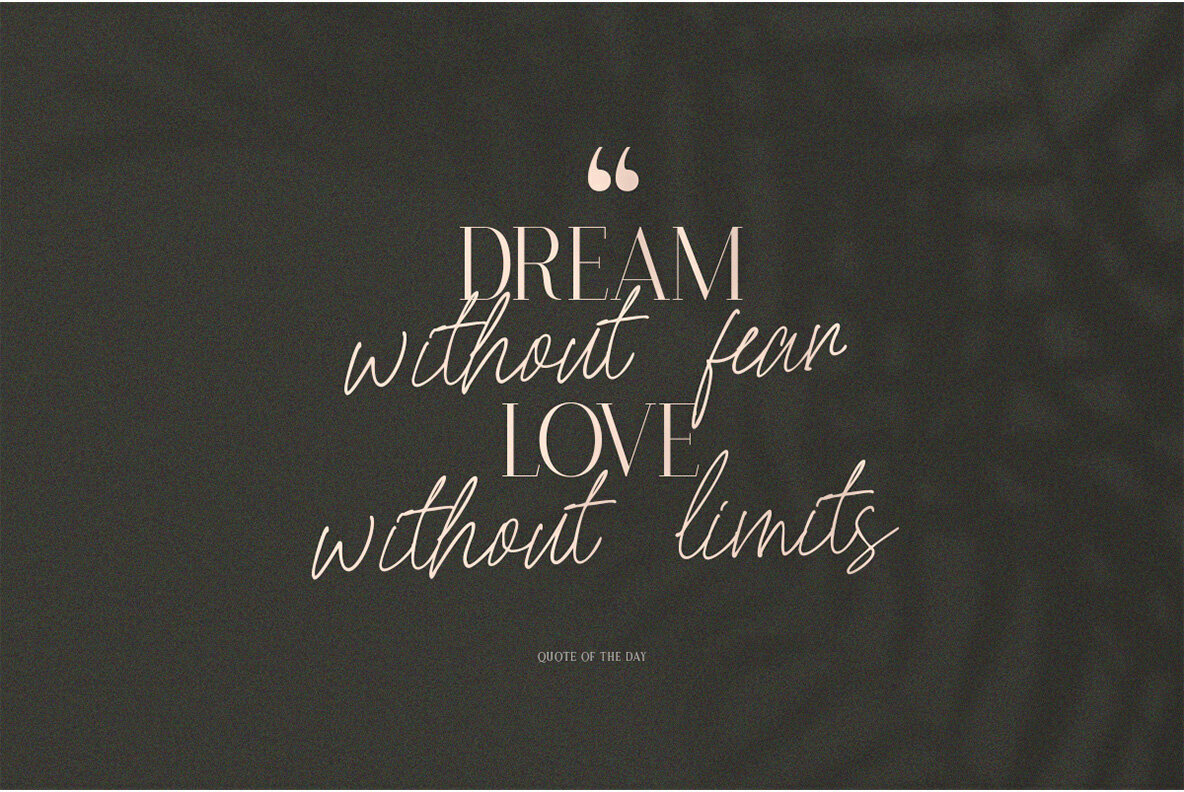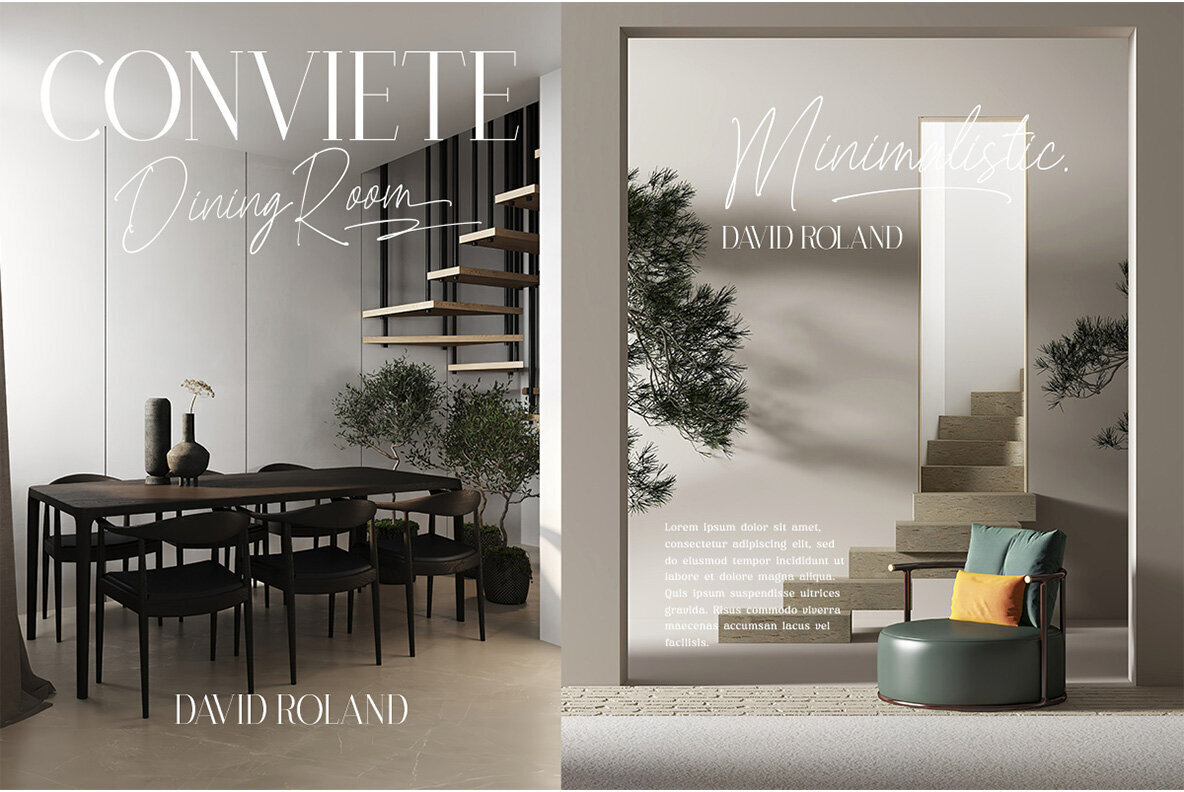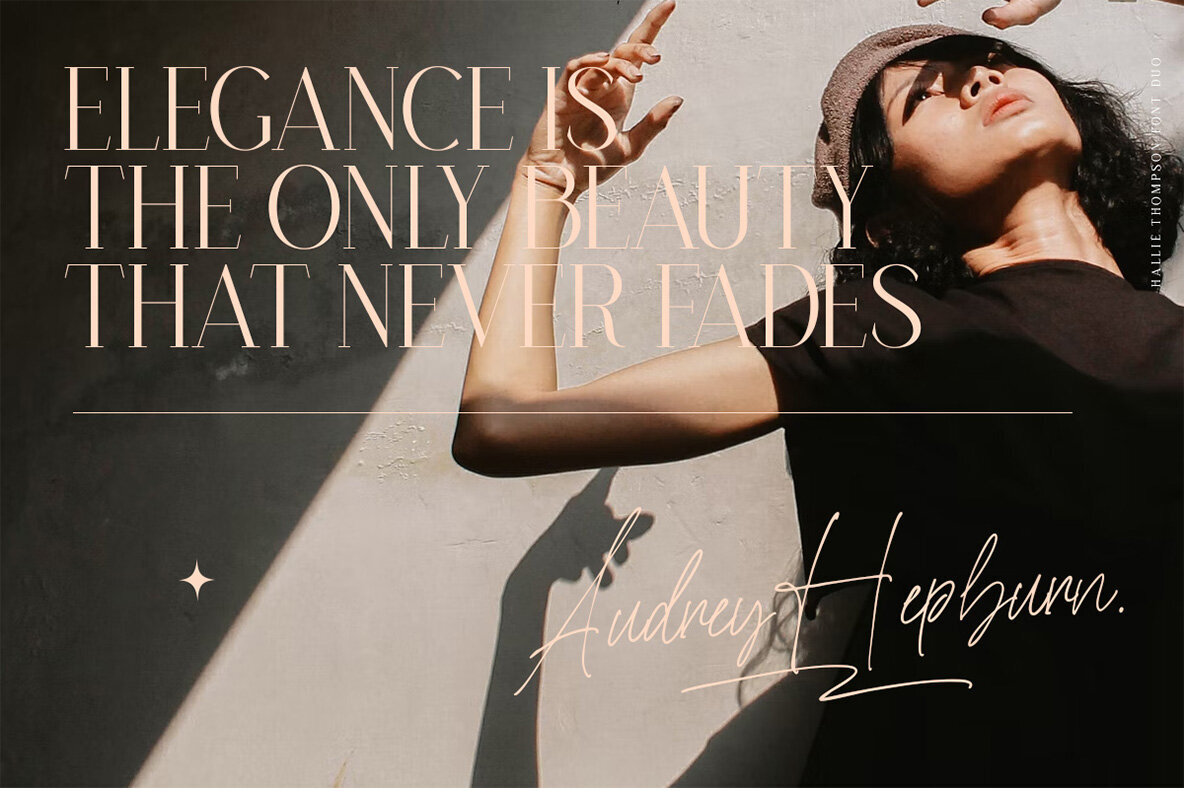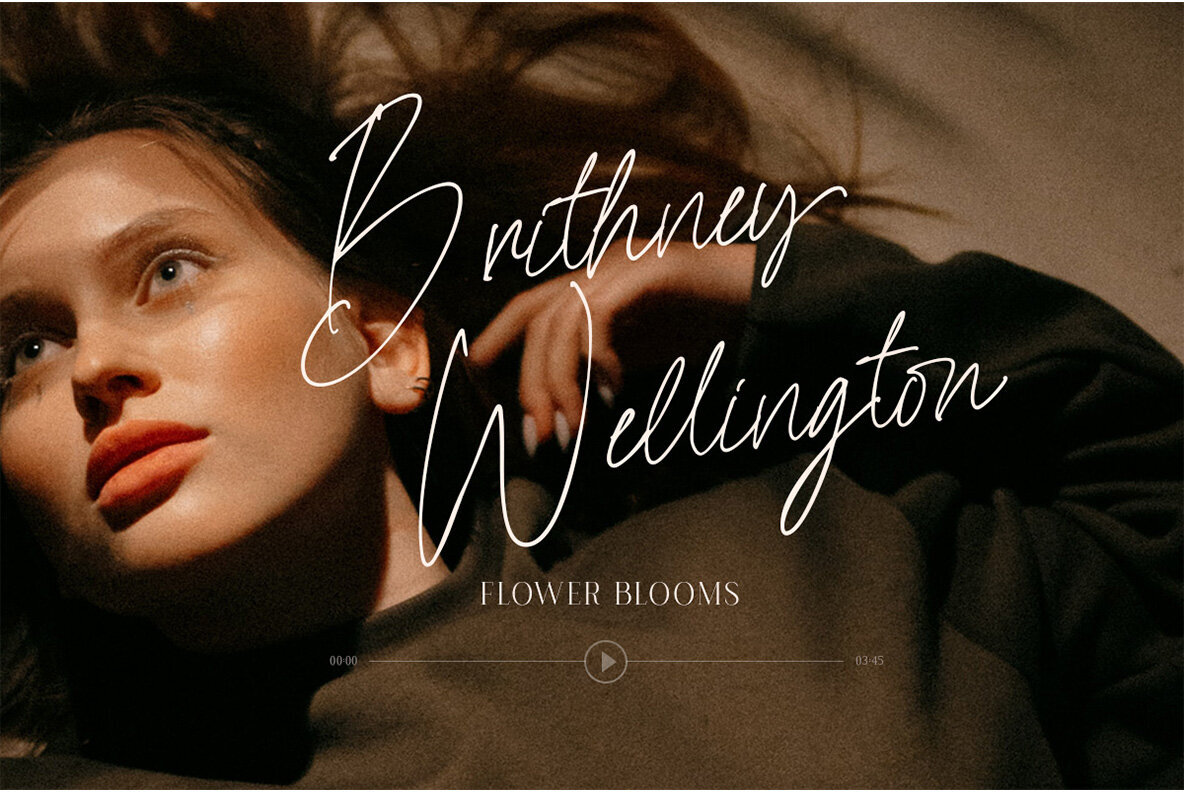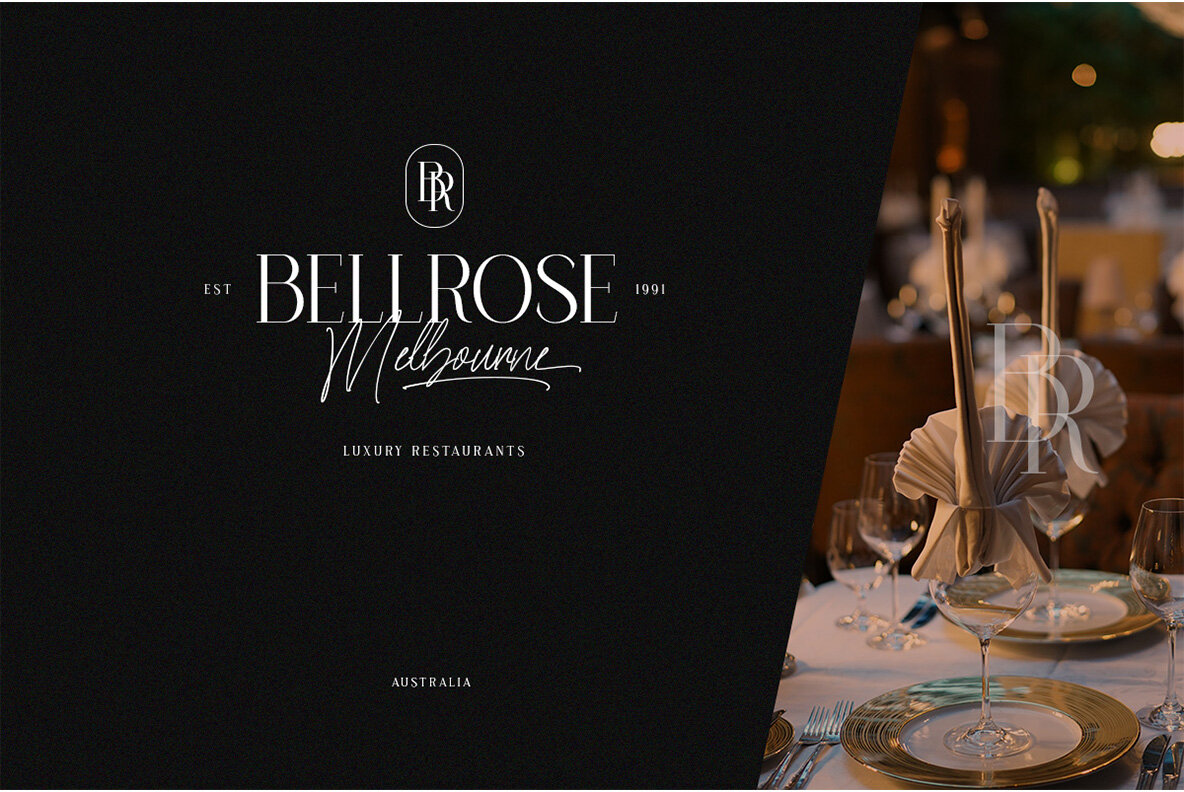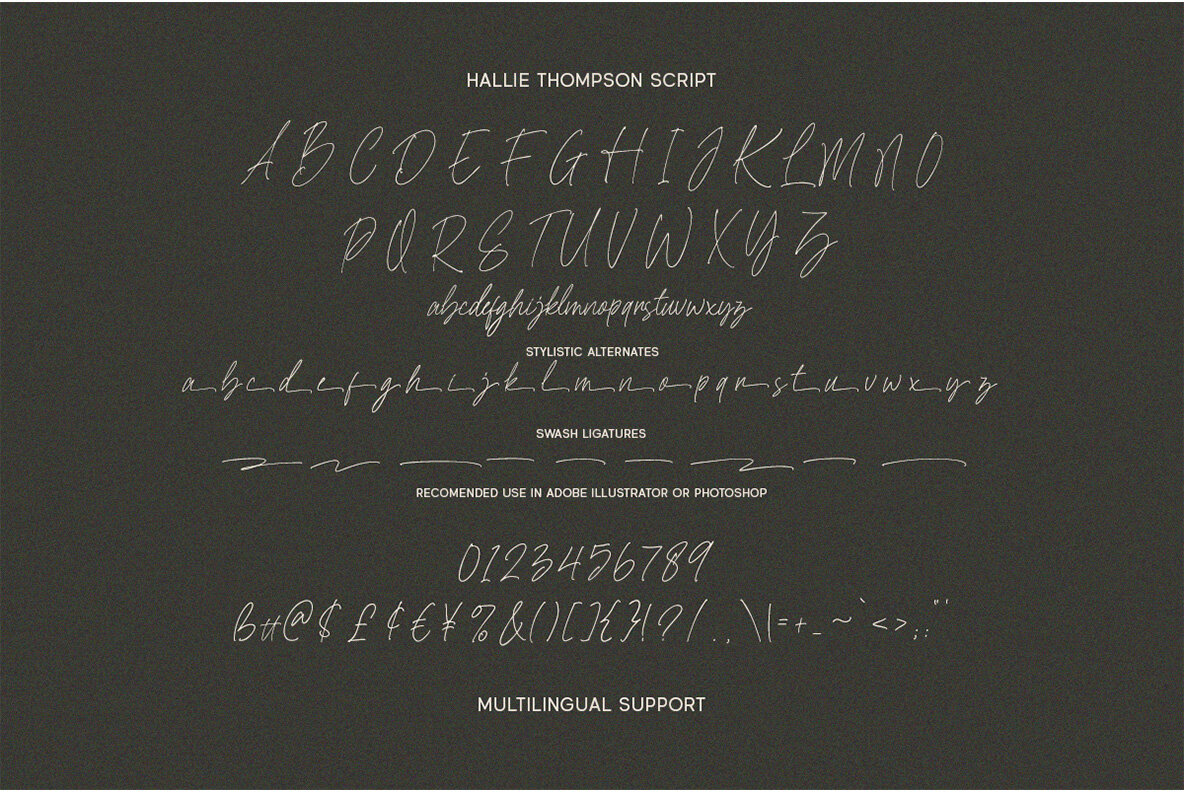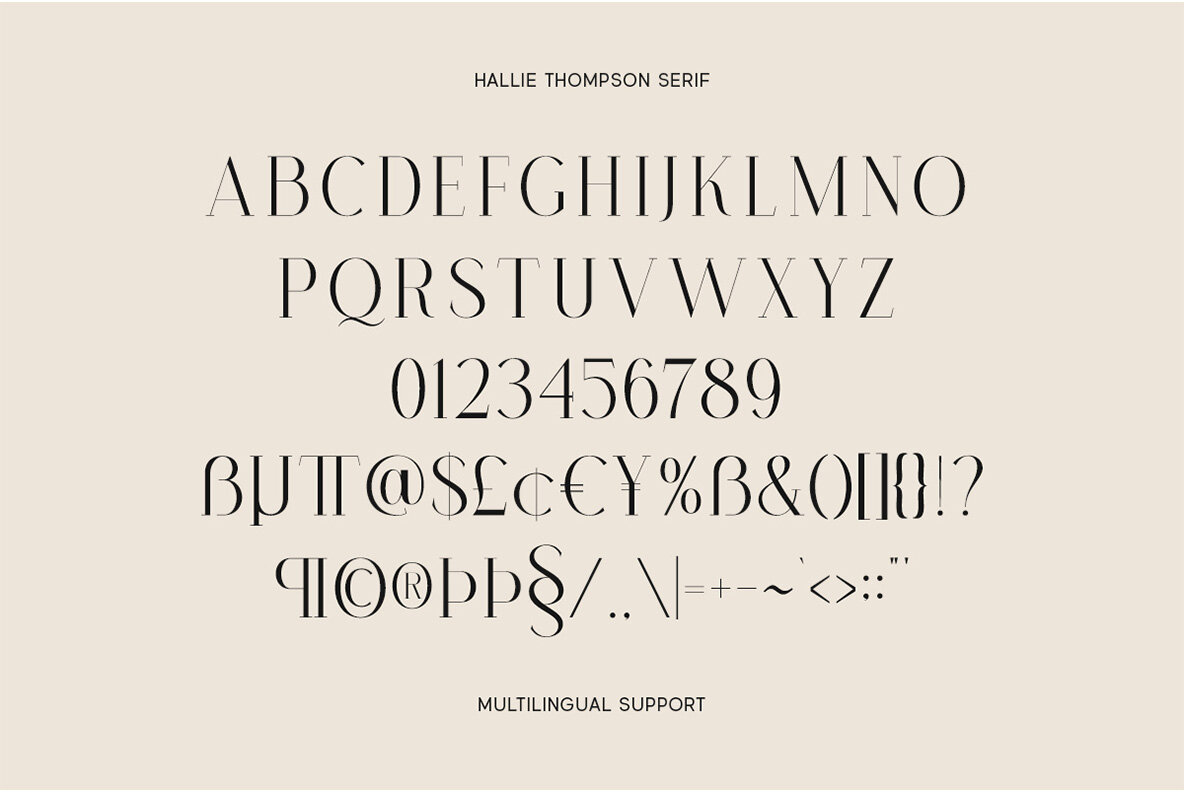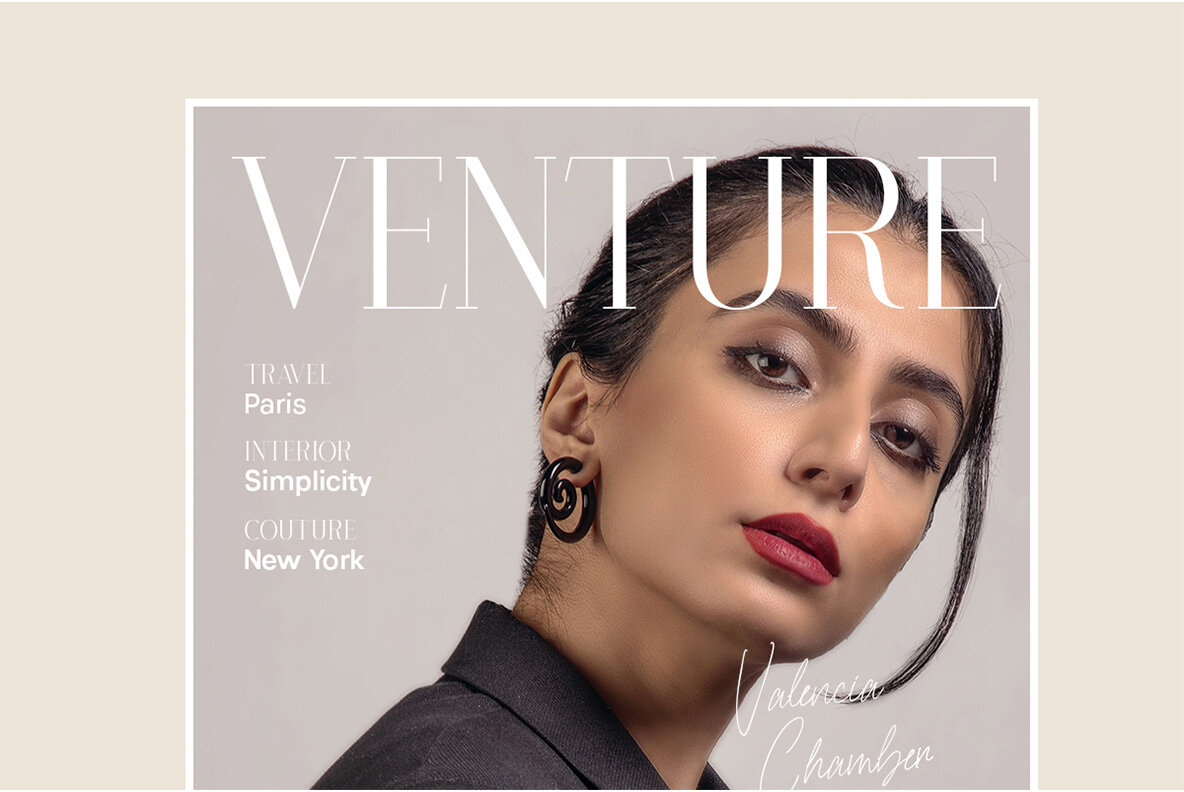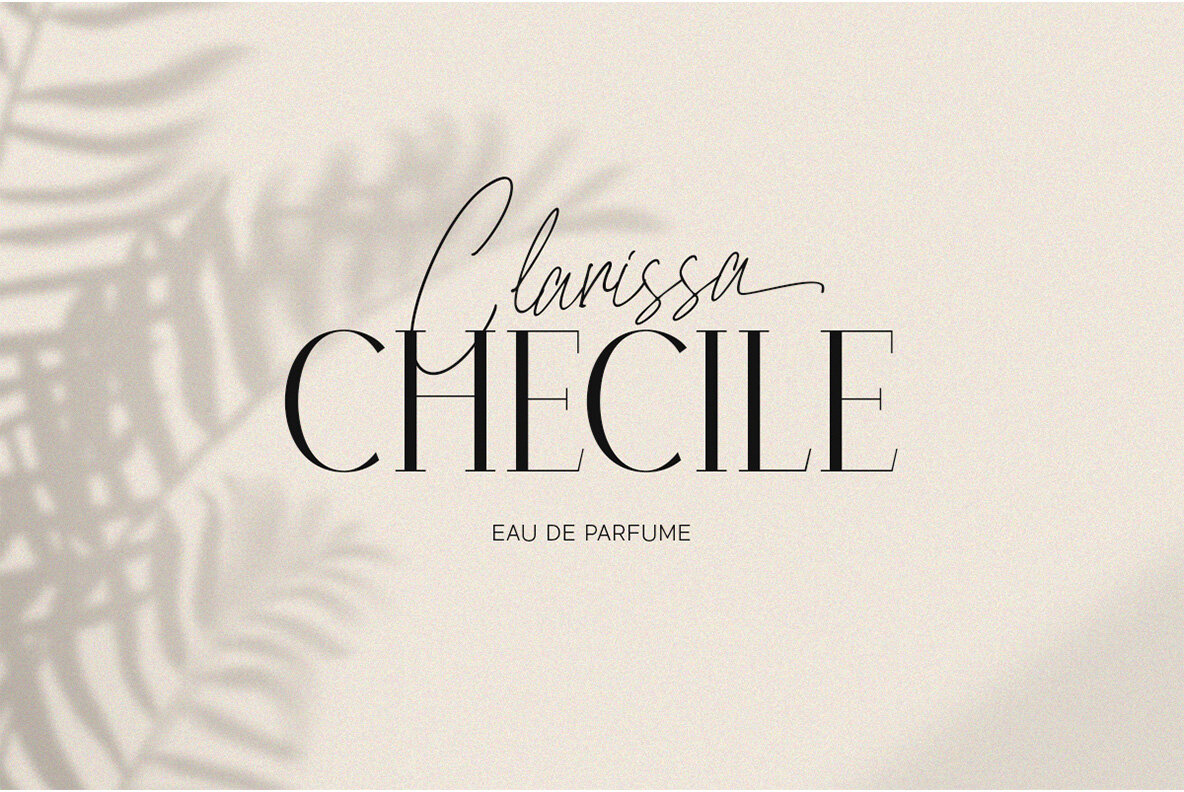
Hallie Thompson Font
Embrace the harmonious blend of tradition and individuality with Hallie Thompson. This dual-font system combines the elegance of serif typography with the personal touch of handwritten script. This unique pairing is expertly crafted for a variety of applications, from headlines to logos, and is particularly suited to apparel, invitations, branding, packaging, and advertising needs. Features:Hallie Thompson: A Fusion of Modern Serif and Handcrafted Script